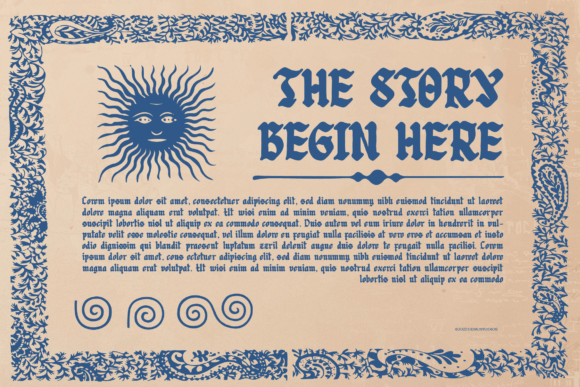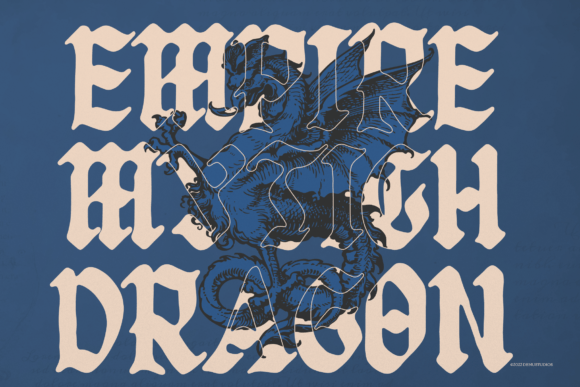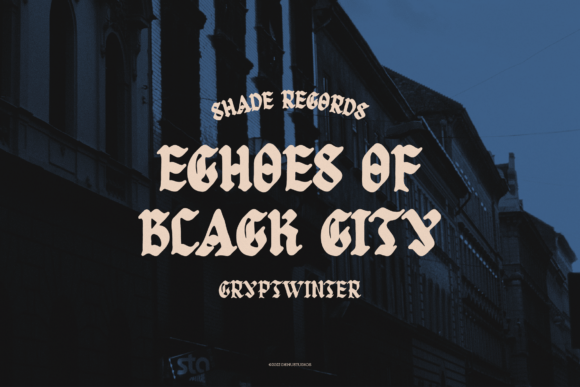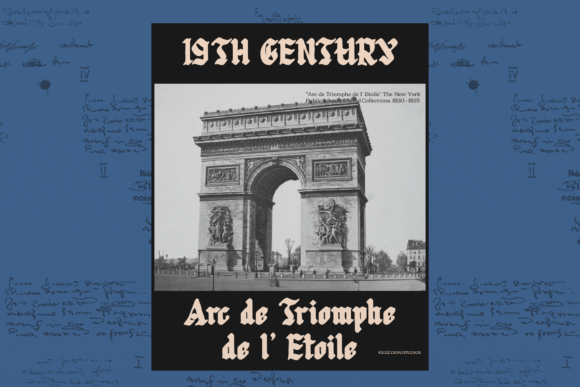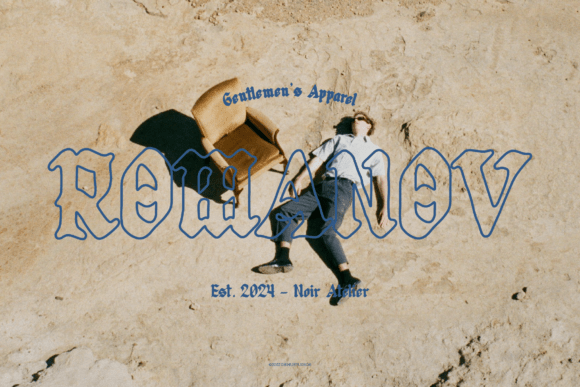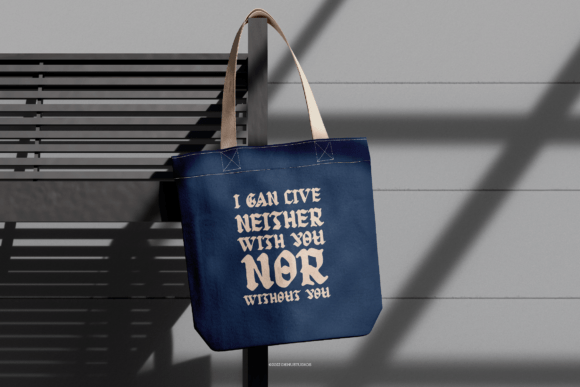
Candlix Font: A Modern Blackletter Typeface for Bold Designs
In the world of typography, few fonts have managed to strike a balance between tradition and modernity as effectively as Candlix. This striking and modern interpretation of the Blackletter Typeface offers a dramatic blend of gothic tradition and contemporary boldness, making it an ideal choice for designers looking to create impactful designs that exude strength, heritage, or modern rebellion.
A Unique Take on Blackletter Tradition
Candlix transcends typical historical constraints by incorporating a heavy, almost slab-like weight and softened, rounded edges, which give it a unique, approachable ferocity. This distinctive design approach sets Candlix apart from traditional Blackletter typefaces, making it a versatile choice for a wide range of design applications. Whether you’re looking to create edgy street fashion branding, brewery and beverage labels, band logos, or intense editorial graphics, Candlix provides a powerful sense of drama and exclusivity that’s sure to grab attention.
Multiple Weights for Versatility
One of the standout features of the Candlix font is its availability in multiple weights, including Regular and Heavy. This allows designers to experiment with different styles and tones, creating a range of effects that can be tailored to suit specific design requirements. Whether you need a bold, attention-grabbing headline or a more subtle, nuanced text, Candlix provides the flexibility to achieve your design goals.
Ideal for Impactful Designs
Candlix is particularly well-suited for designs that require an aesthetic of strength, heritage, or modern rebellion. Its bold, dramatic appearance makes it an excellent choice for:
- Edgy street fashion branding: Add a touch of rebelliousness to your fashion brand with Candlix’s bold, eye-catching design.
- Brewery and beverage labels: Create labels that stand out on store shelves with Candlix’s unique blend of gothic tradition and modern boldness.
- Band logos: Give your band a bold, attention-grabbing logo that reflects your music style with Candlix’s heavy, slab-like weight.
- Intense editorial graphics: Add drama and impact to your editorial designs with Candlix’s powerful, commanding presence.
Comprehensive Glyphs and Characters
The Candlix typeface includes the essential glyphs and characters needed to construct commanding titles and impactful short texts. This comprehensive character set ensures that designers have everything they need to create stunning designs that showcase the font’s unique features.
Candlix is a remarkable Blackletter typeface that offers a unique blend of gothic tradition and modern boldness. With its multiple weights, comprehensive glyphs and characters, and PUA-encoding, Candlix provides designers with a powerful tool for creating impactful designs that demand attention. Whether you’re a designer, crafter, or simply someone looking to add a touch of drama to your project, Candlix is an excellent choice for anyone seeking a bold, modern typeface.